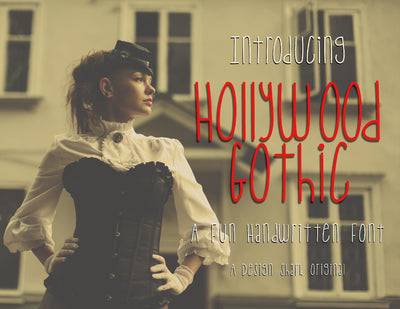
Hollywood Gothic
I'll admit I wasn't sure what to name this font but my hubby said it reminded him of the Addams Family so Hollywood Gothic got a name!